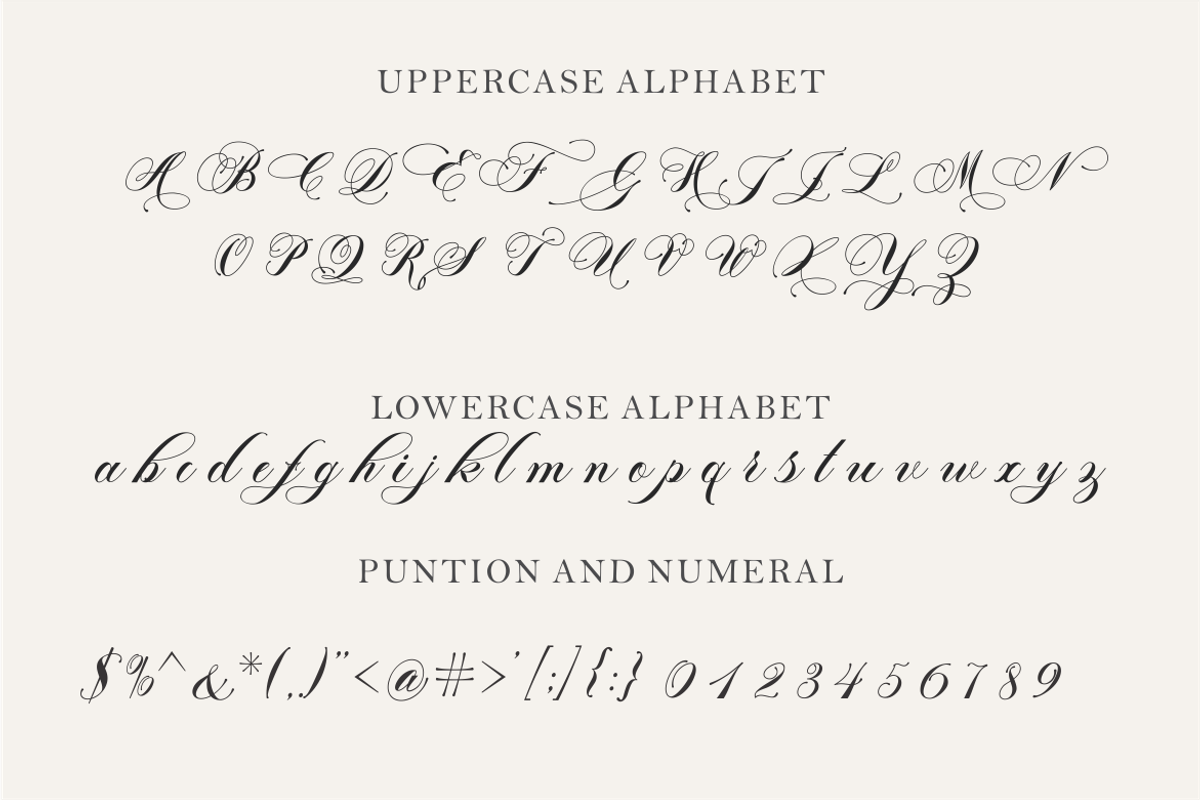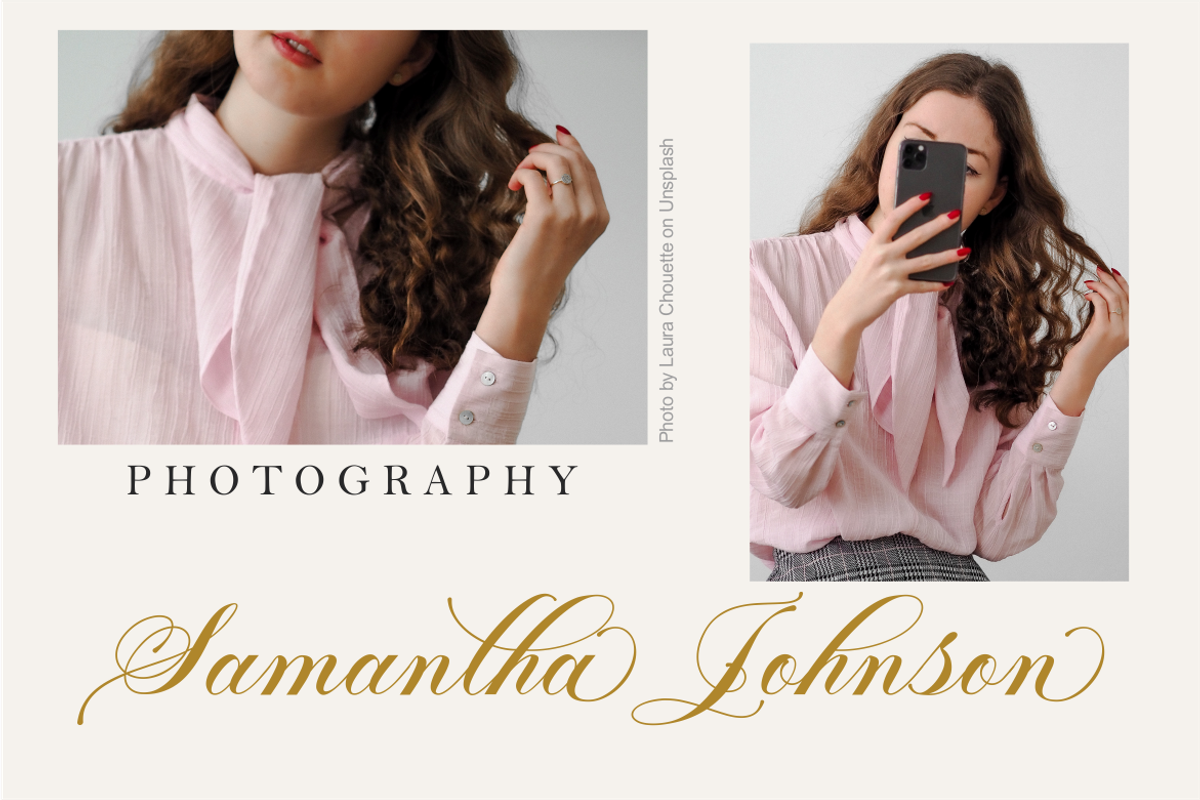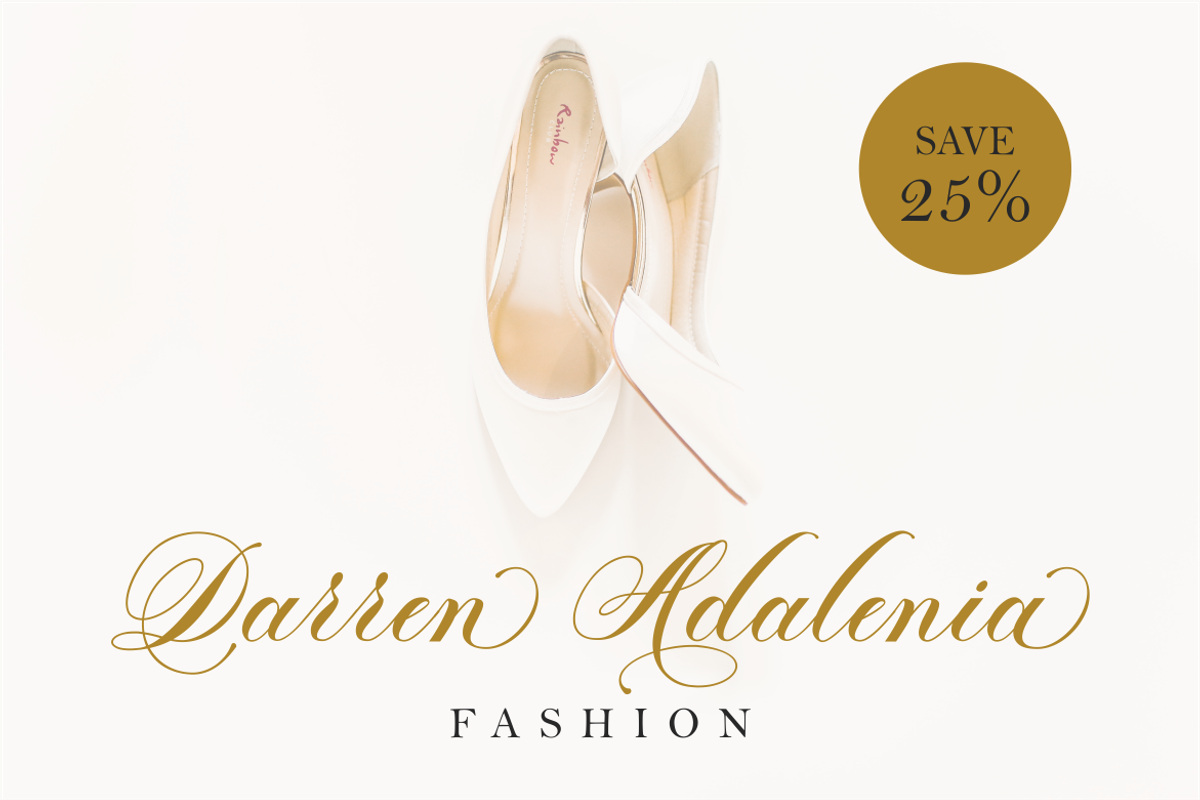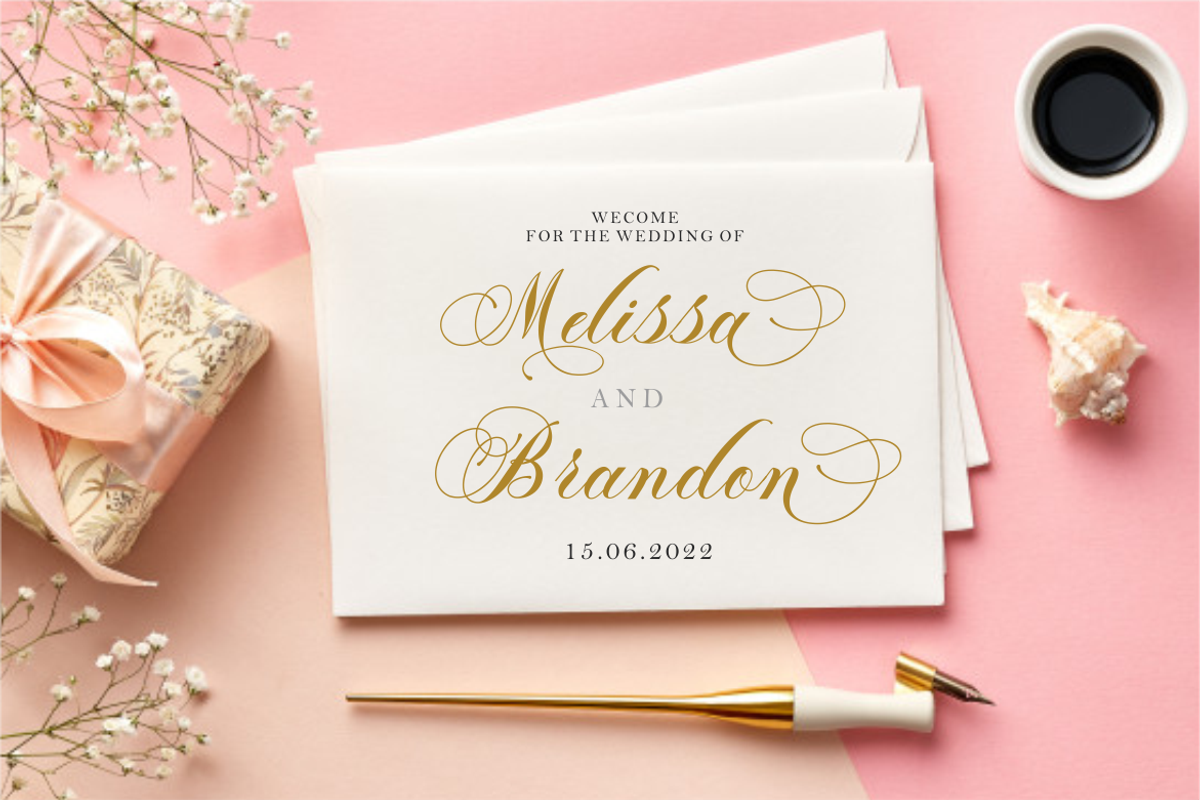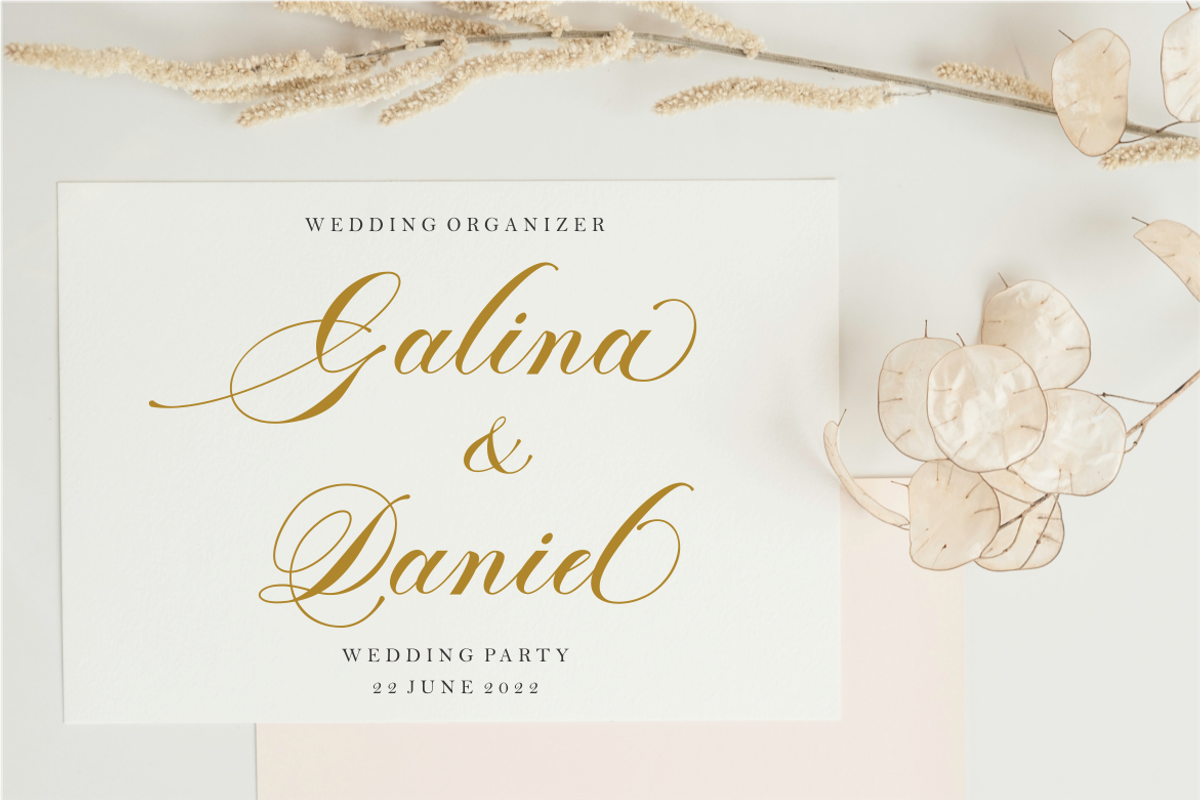
Gathering Script
Gathering Calligraphy is a modern calligraphy font that seamlessly blends classic beauty with a contemporary touch. With its smooth and elegant strokes, this font exudes a luxurious feel, making it perfect for various design needs. Its flowing letterforms and delicate curves create a romantic and artistic impression.
Exceptionally versatile, Gathering Calligraphy is ideal for a wide range of creative projects, including logo design, product packaging, wedding invitations, branding, inspirational quotes, and captivating posters. Its refined elegance also makes it perfect for digital signatures, book covers, and social media, adding an exclusive touch to every creation.
Elevate your design aesthetics with Gathering Calligraphy, a font that radiates elegance and timeless charm.